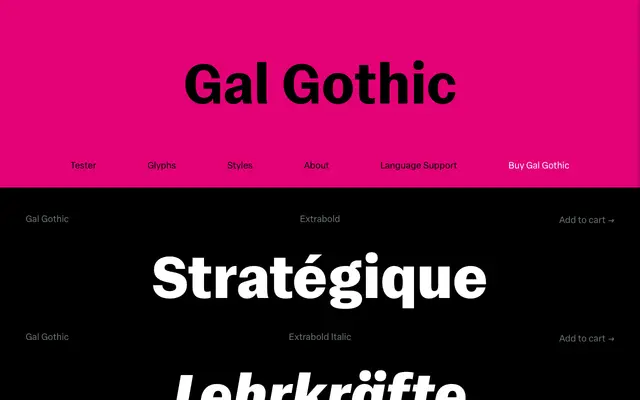
Gal Gothic
Blackletra · Daniel Sabino · 2022
A Franklin Gothic-inspired grotesque by Daniel Sabino that extends the characteristic stroke contrast into lighter weights and tilts the overall design towards the neo-grotesque with horizontal terminals and round dots.
Where Franklin Gothic's stroke contrast historically diminished in lighter weights due to later additions by other hands, Gal Gothic reintegrates that contrast across the entire range for a more coherent system. Horizontal terminals and smooth junctions between verticals and curves pull the design away from its American grotesque roots and closer to neo-grotesque territory, while round dots and a consistent rhythm give it a distinct voice. Each font contains around 900 glyphs with extensive Latin language support, small caps, tabular and old-style figures, and a variable version with weight and width axes. The name is a tribute to Brazilian singer Gal Costa.
Inspired by Franklin Gothic, a classic American grotesque, but modified with horizontal terminals and smooth curve-to-stem connections that push it toward the neo-grotesque model, making it a hybrid between the two traditions.